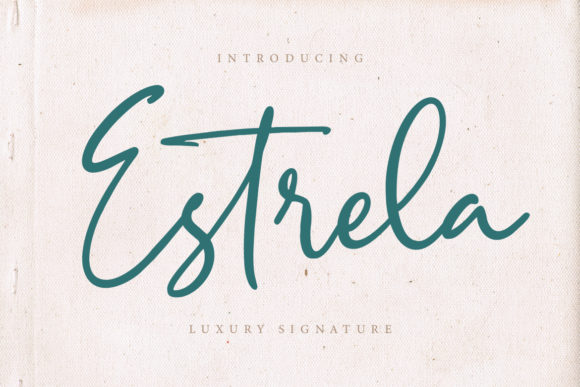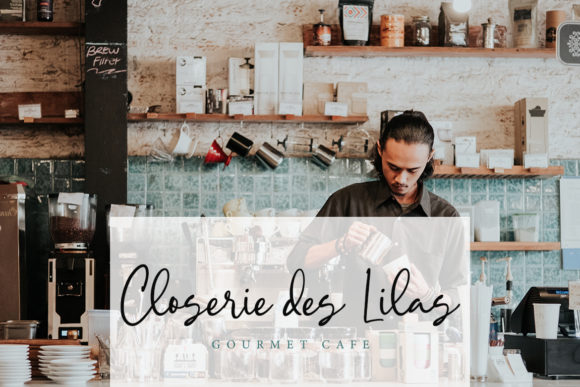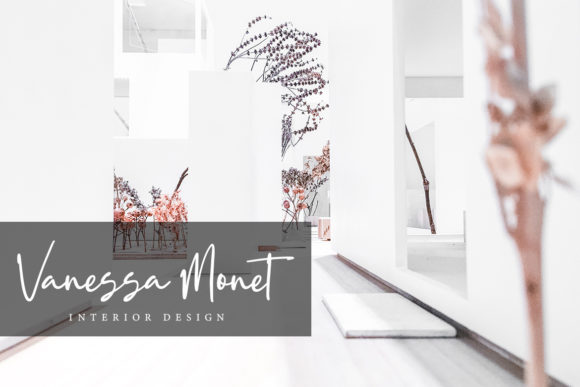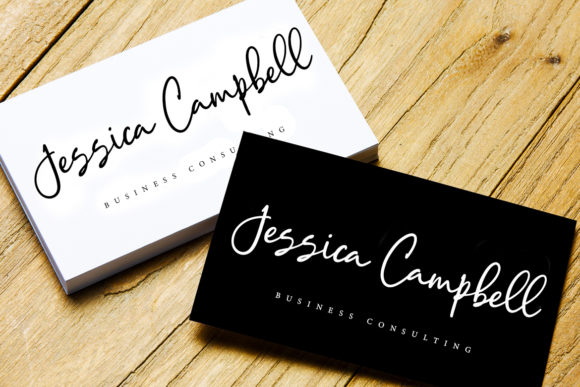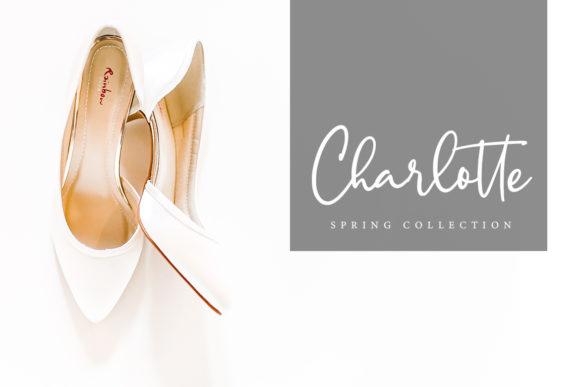
Estrela Font
About Estrela Font
Estrela is a beautiful and light handwritten font full of authentic charm. Use it to turn any design project into an eye catcher!